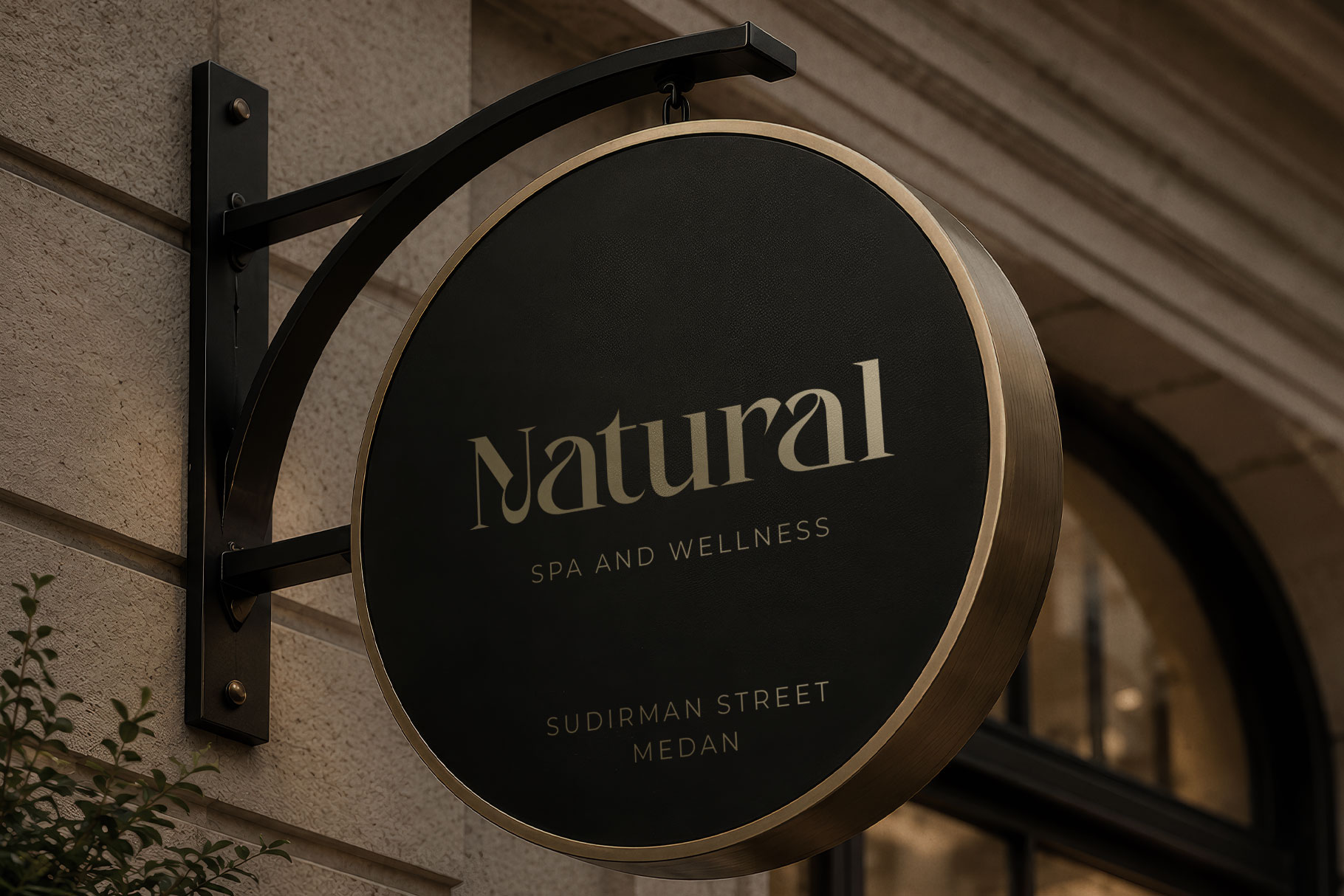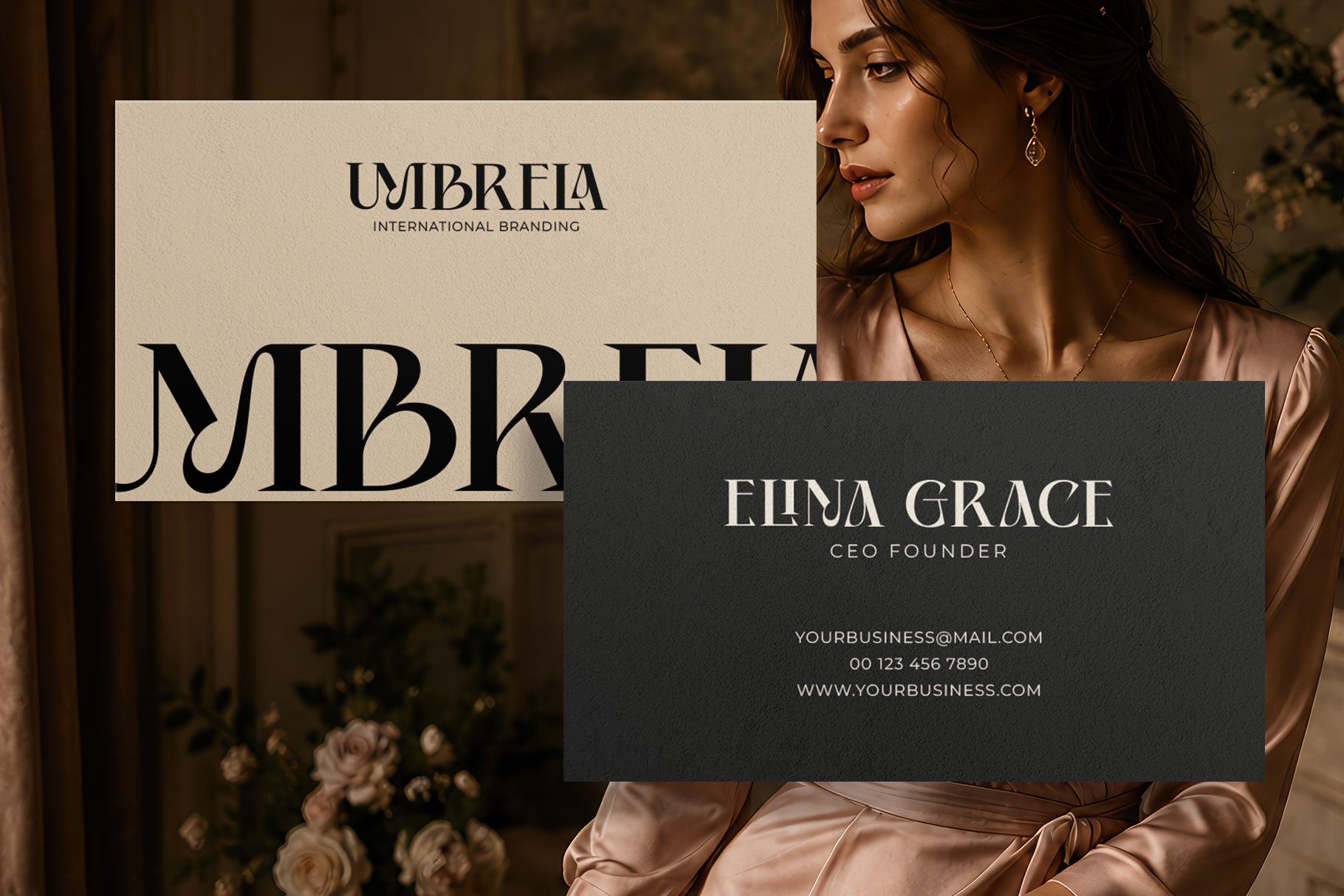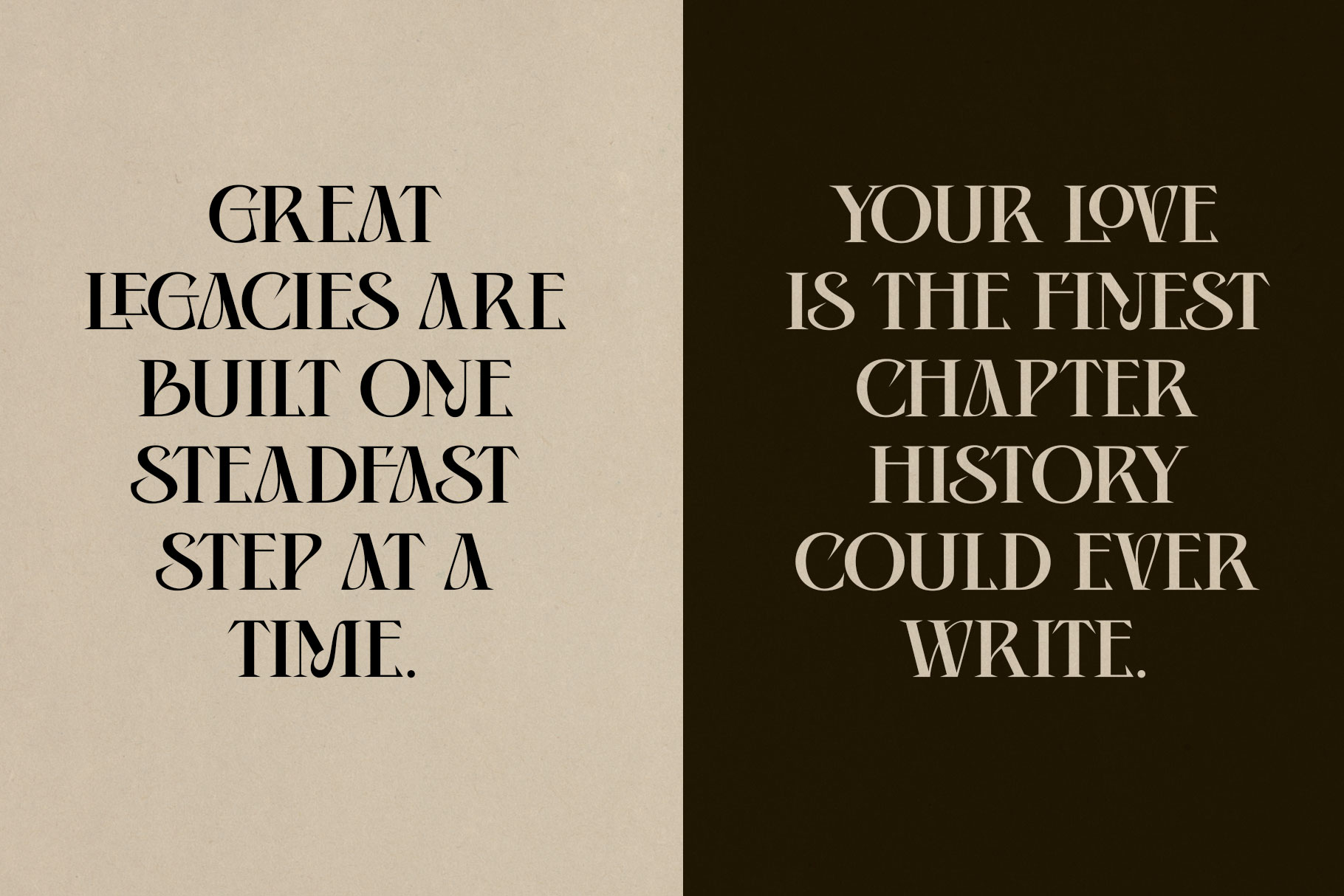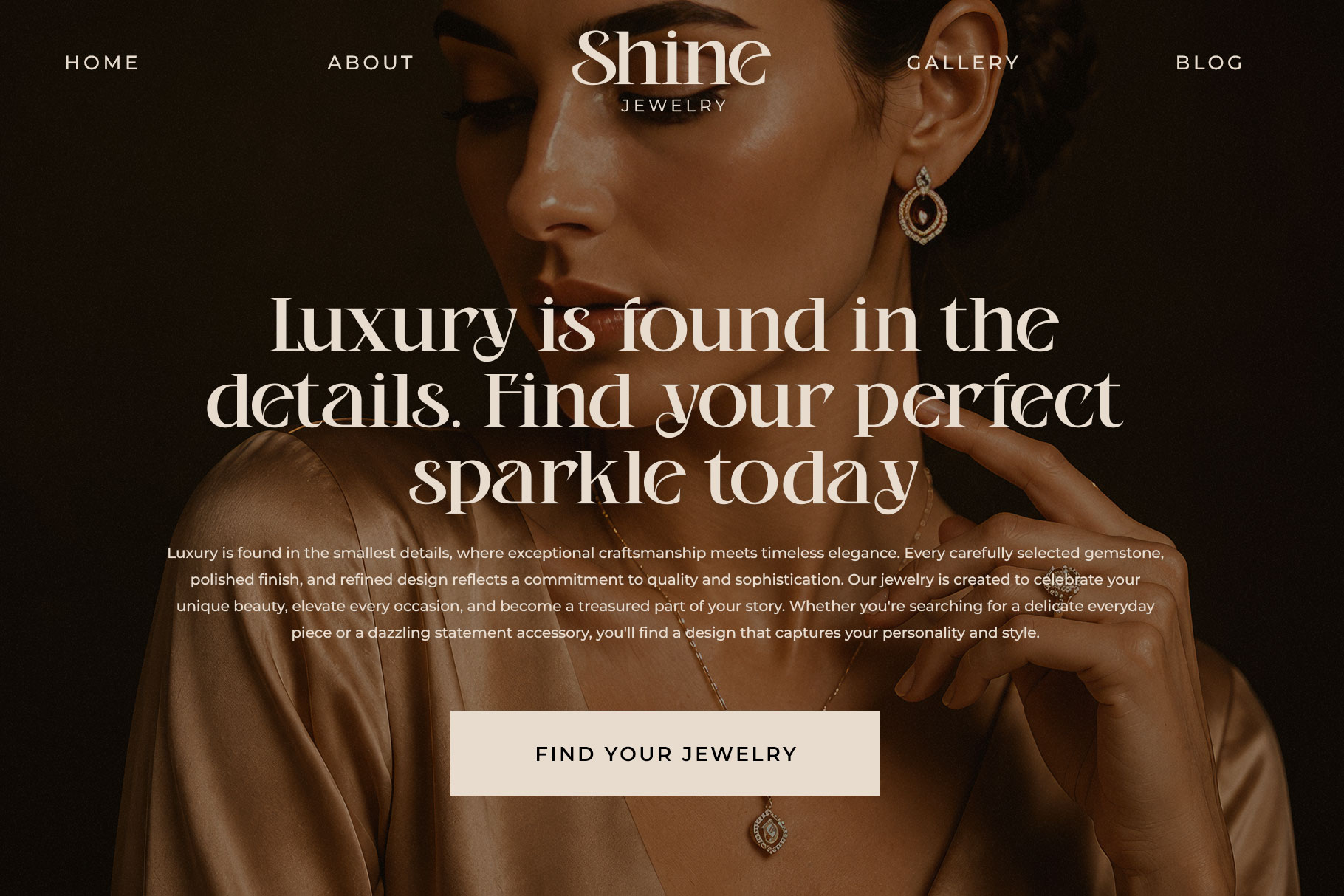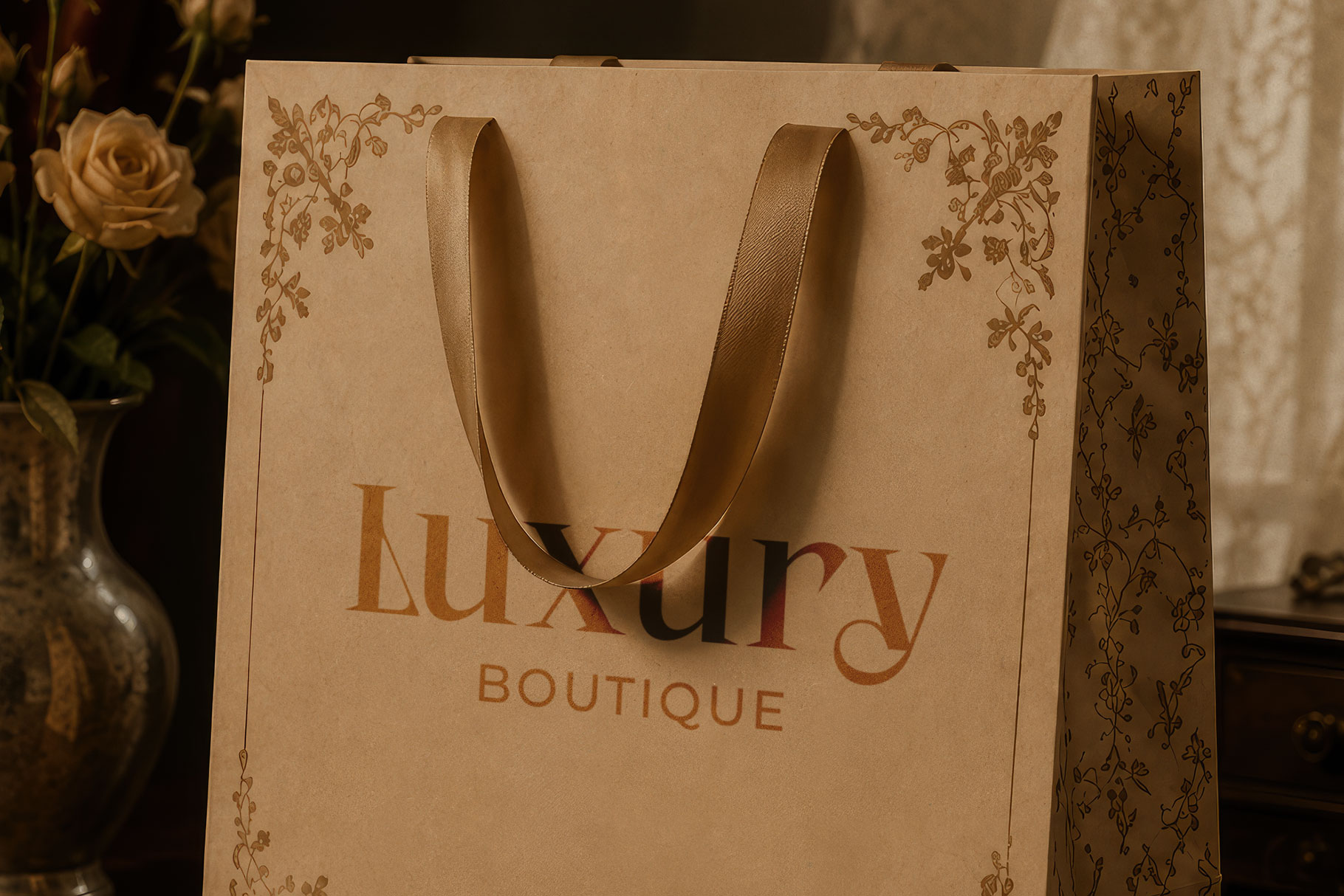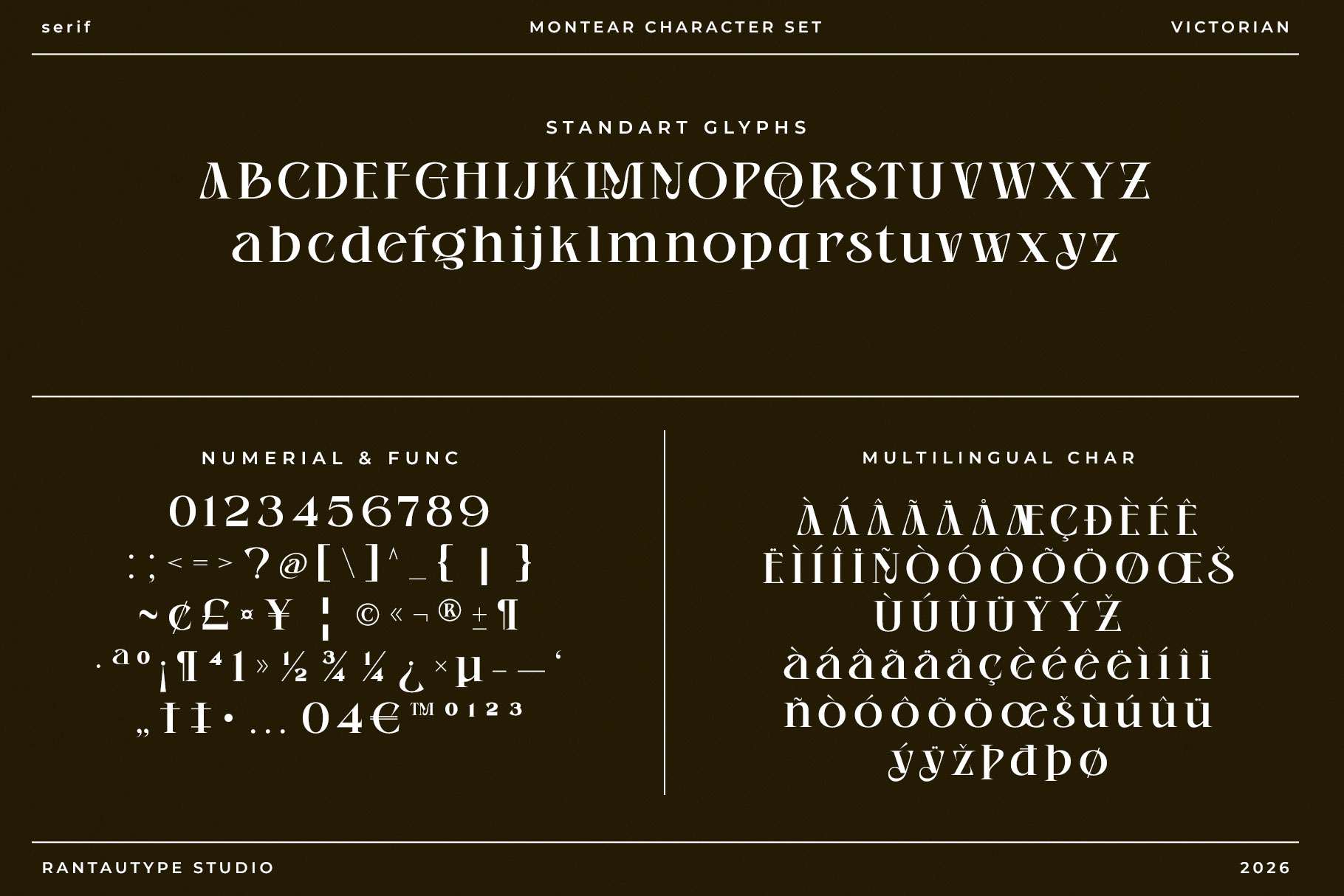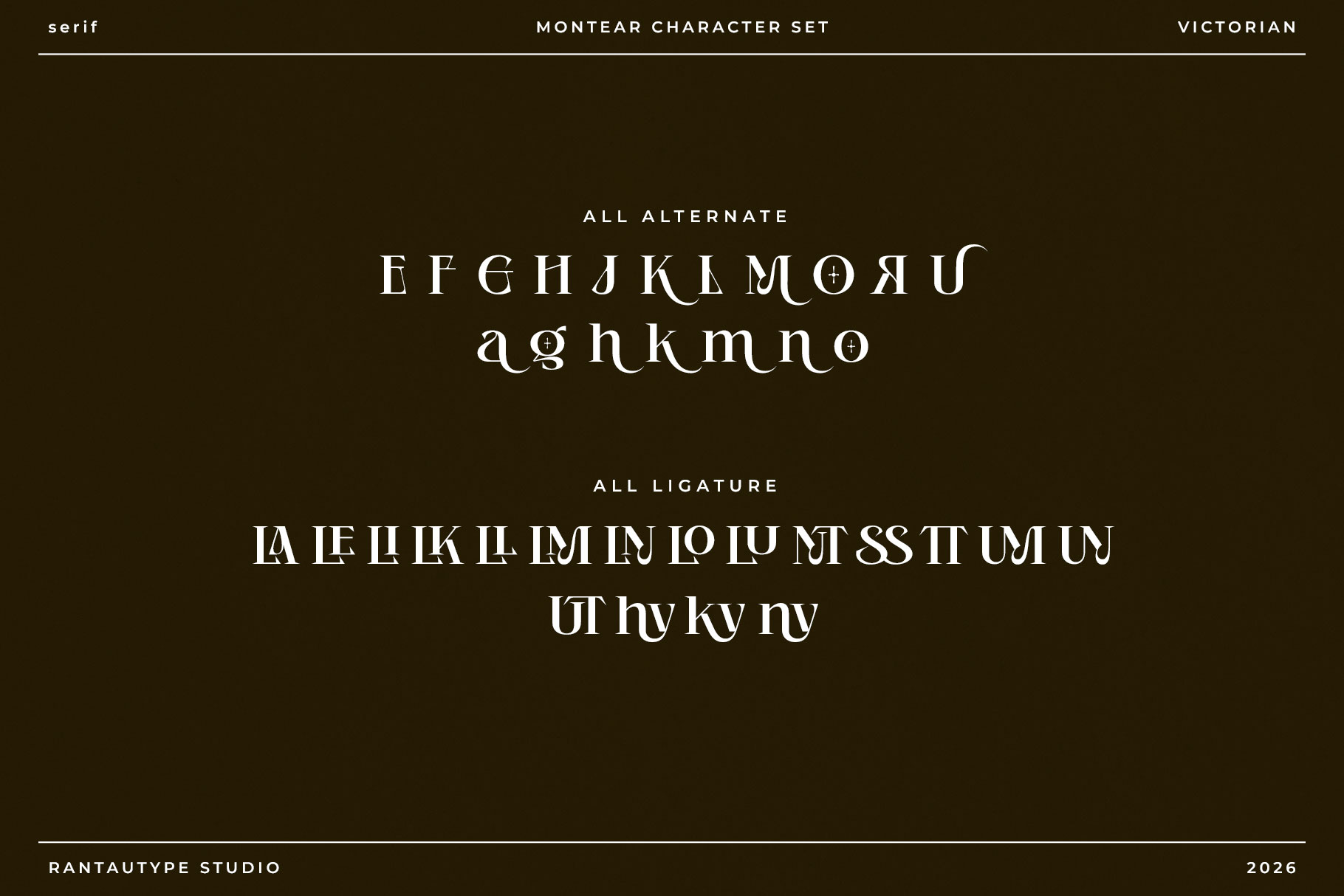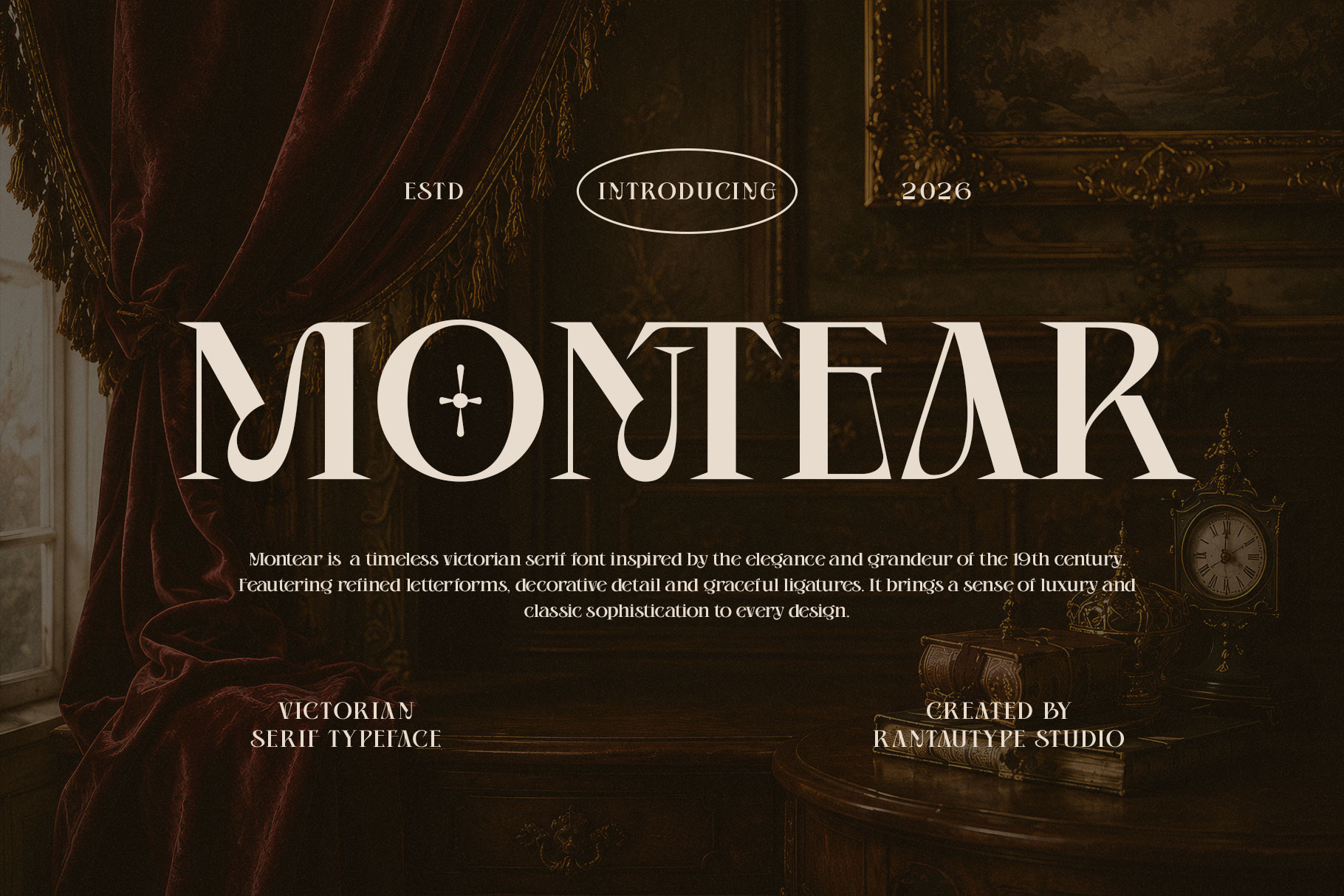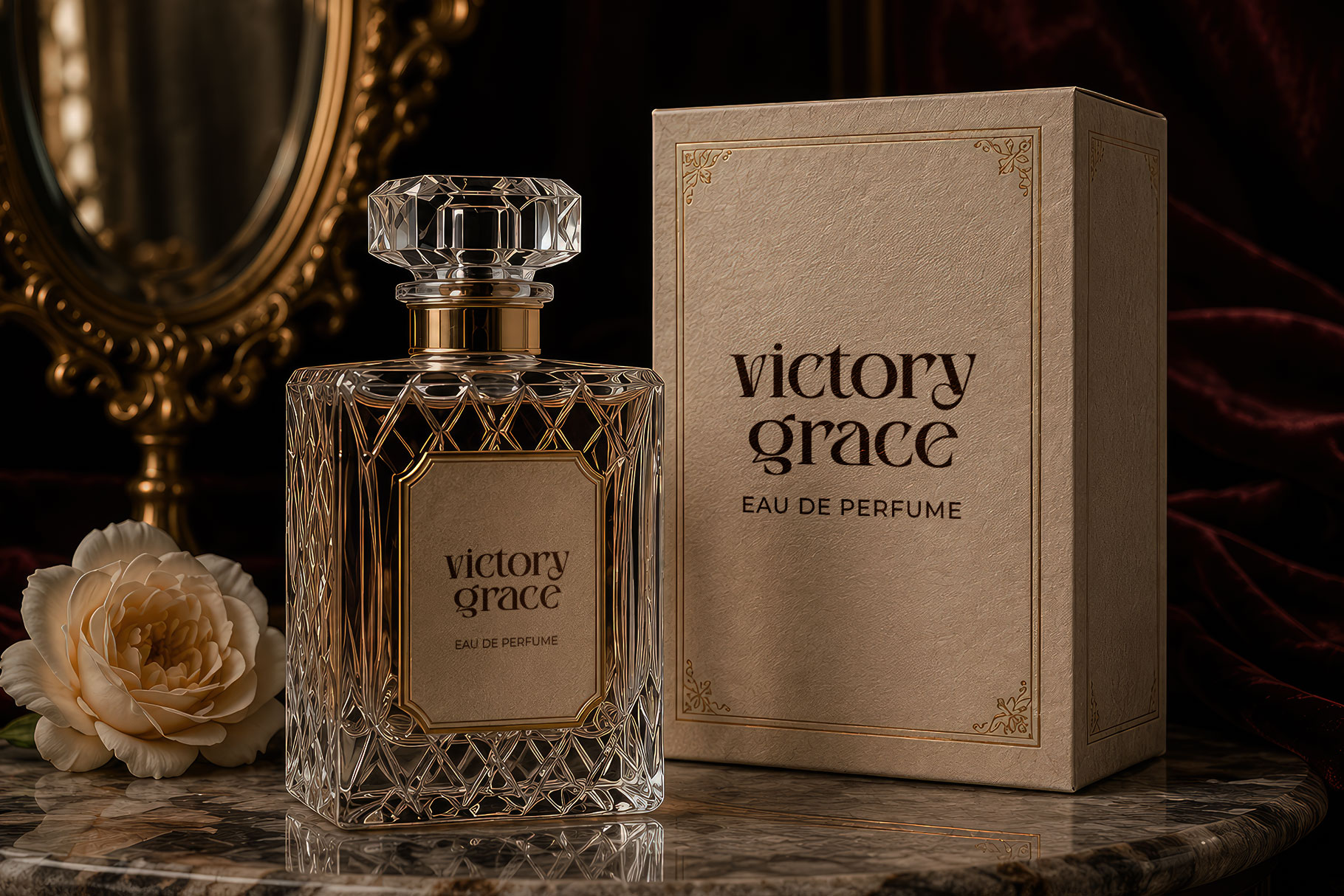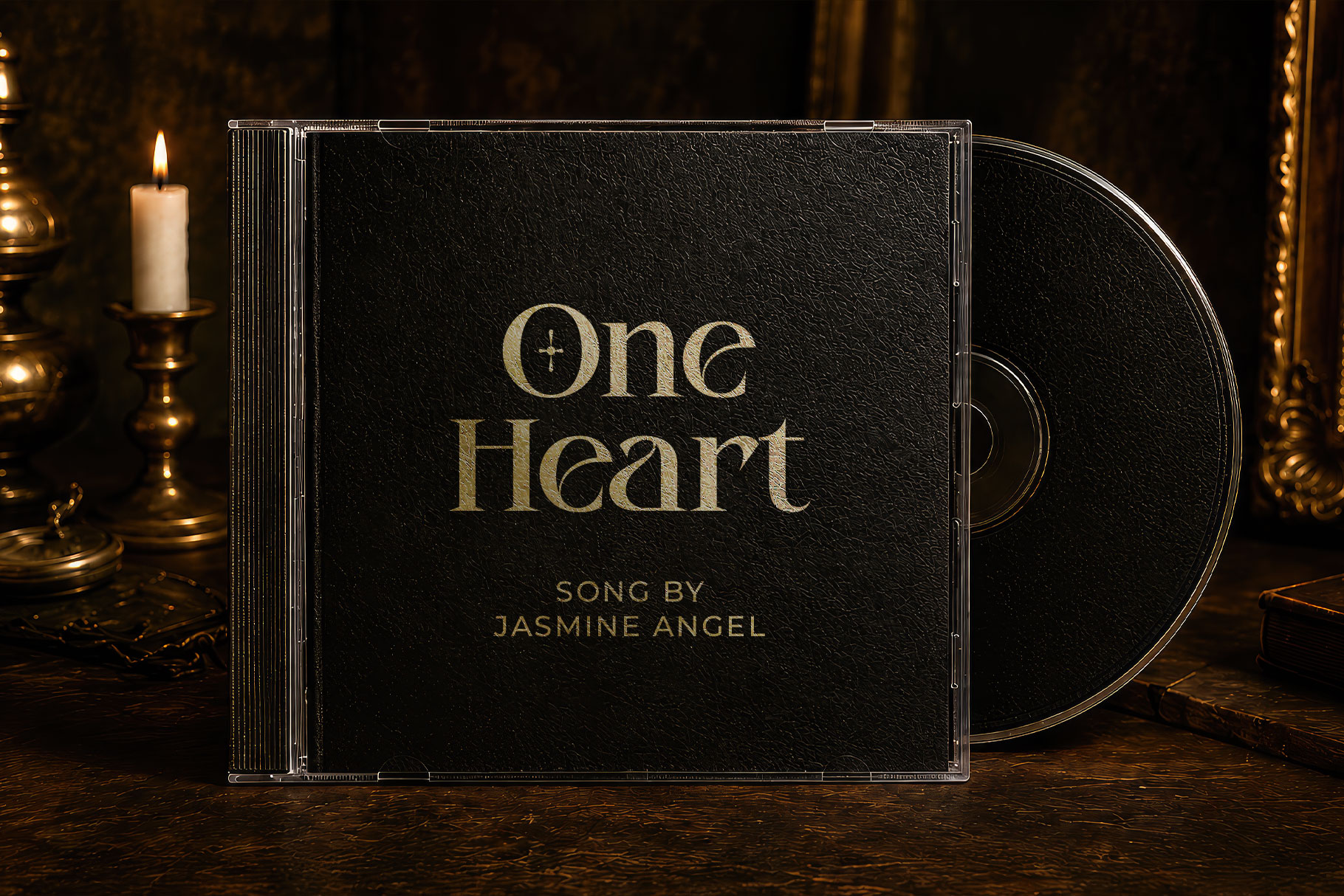
Montear is a timeless victorian serif font inspired by the elegance and grandeur of the 19th century. Feautering refined letterforms, decorative detail and graceful ligatures. It brings a sense of luxury and classic sophistication to every design. Montear perfectly choice for any creative endeavor, creating, modern, lifestyle design such as logotype, title, cover, branding, invitations, wedding designs, display and magazine, social media posts, advertisements, printed quotes, product packaging, corporate brand, product designs, labels, photography, watermarks, special events and any other project with victorian touch.
Montear Victorian Serif Typeface